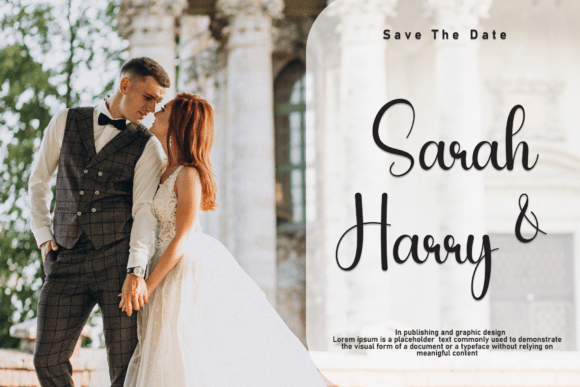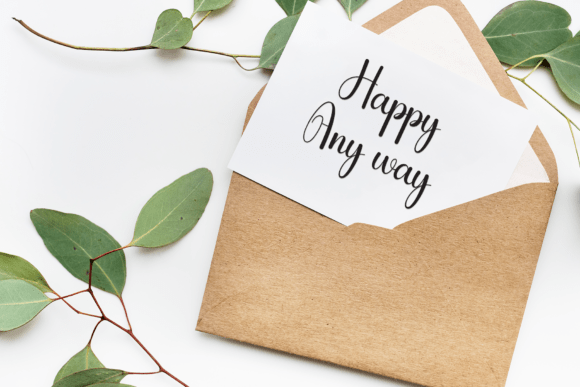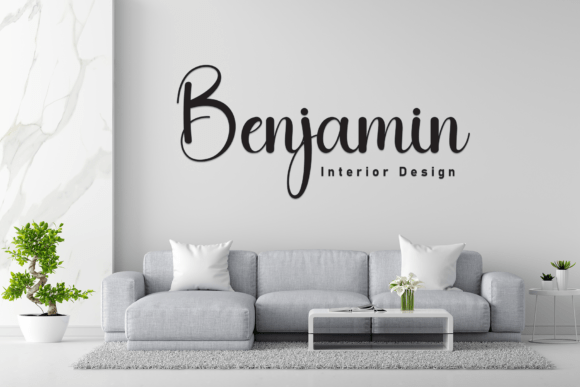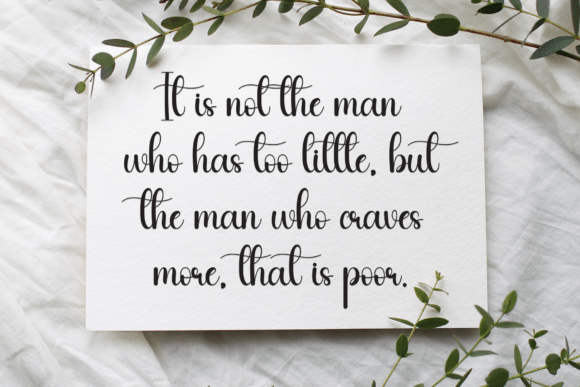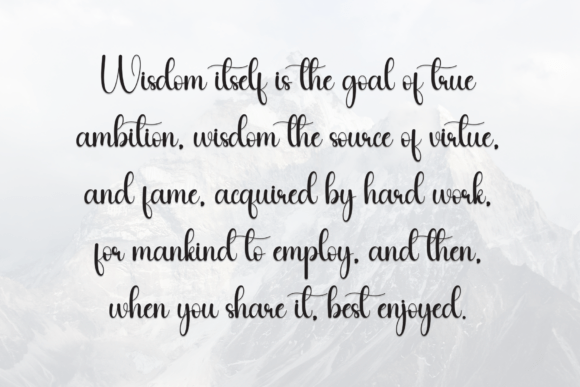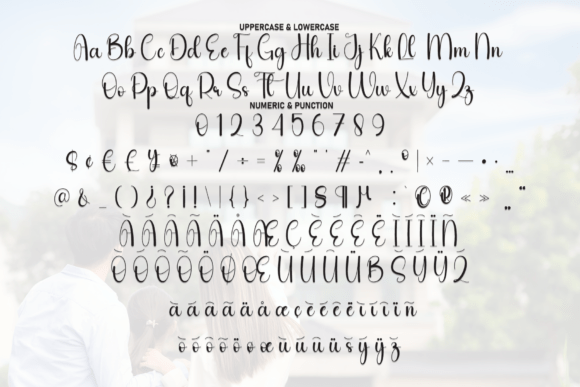
The Perfect Script for Your Next Design Project
As a designer, there’s nothing quite like the feeling of finding the perfect font to elevate a project. It’s that moment when all the pieces come together, and your vision starts to take shape. For me, it’s often the discovery of a beautiful script font that sets the tone for a fresh and elegant design. And that’s exactly what the Bighome Font offers – a stylish handwritten script that radiates charm and sophistication.
Bighome Font is designed to add a personal touch to any project, from invitations and branding to seasonal designs. Its flowing strokes and delicate curves evoke a sense of renewal, making it perfect for projects that need a gentle, uplifting feel. As a designer, you’ll appreciate the value that Bighome Font brings to your work – a unique and stylish element that sets your projects apart from the rest.
Bighome Font Key Features
- Character Set: The font features a comprehensive character set, including Latin, Cyrillic, and Greek alphabets, as well as a range of punctuation marks and symbols.
- Unique Characteristics: The font’s distinctive design features a bold, modern aesthetic with a range of weights and styles, making it ideal for use in headings, titles, and other display typography.
- Font Weight and Style Options: The font includes a range of weights and styles, including Light, Regular, Medium, Bold, and Extra Bold, as well as italic and oblique options, providing designers with a high degree of flexibility and control.
Bighome Font Review
I recently had the chance to work with the Bighome Font, and I must say it’s a mixed bag. Here are my thoughts.
- Unique design: Bighome Font has a distinct, bold look that sets it apart from other fonts. Its irregular lines and asymmetrical shapes give it a quirky charm.
- Good for headlines: The font is well-suited for use in headings and titles, where its boldness can really make a statement.
- Supports multiple languages: Bighome Font has a wide language support, making it a good choice for multilingual projects.
- Lack of consistency: The font’s irregular design can sometimes feel inconsistent, making it difficult to read at small sizes or in long blocks of text.
- Not suitable for body text: While Bighome Font is great for headlines, it’s not the best choice for body text, where readability is crucial.
- May require adjustments: Depending on the project, you may need to make adjustments to the font’s size, line height, or spacing to get the best results.
Overall impression
Bighome Font is a unique and bold font that can add a touch of personality to your designs. However, its limitations make it best suited for specific uses, such as headlines or titles. With some adjustments and careful consideration, it can be a valuable addition to your design toolkit.